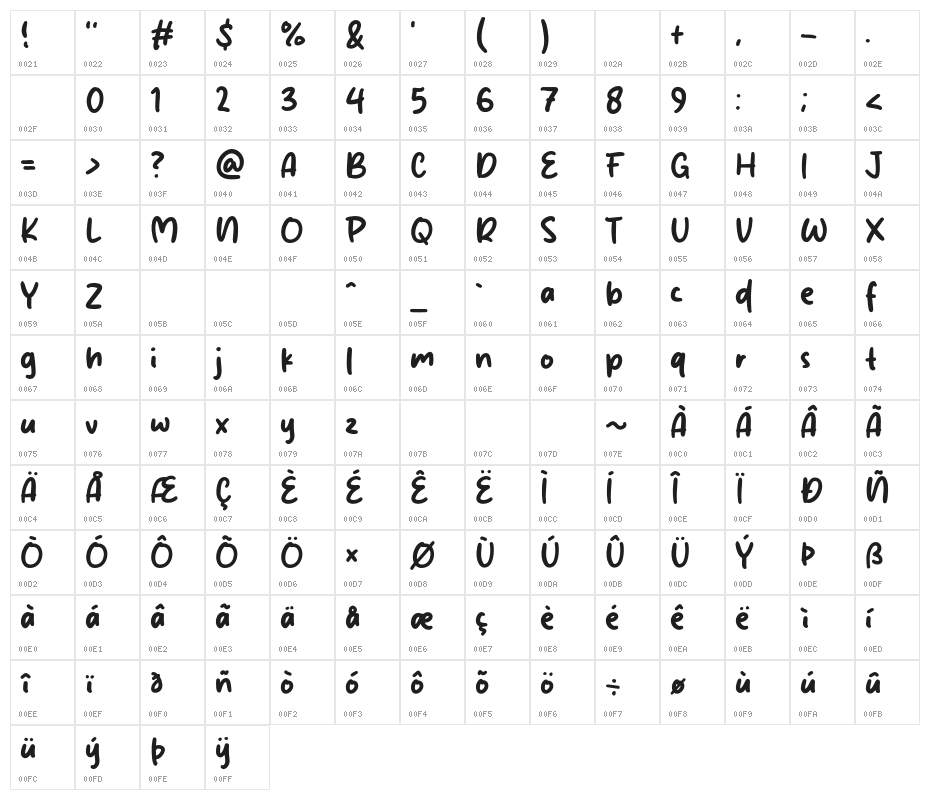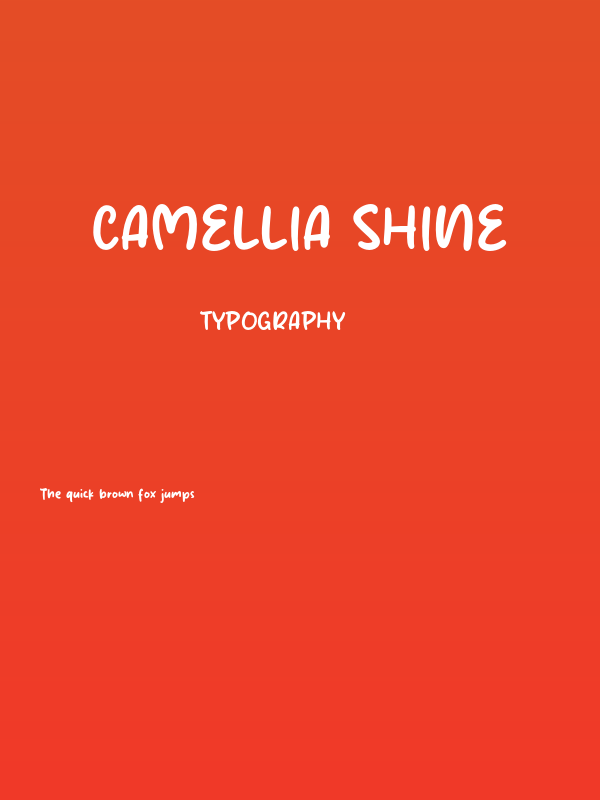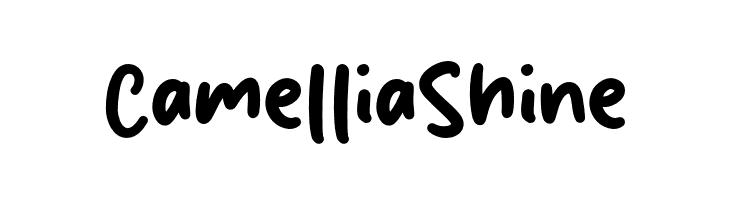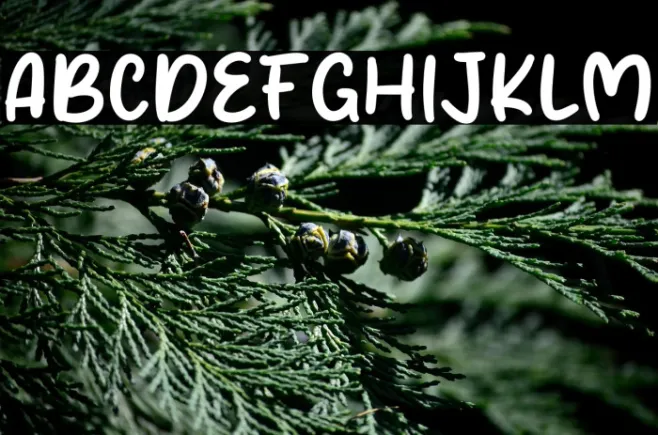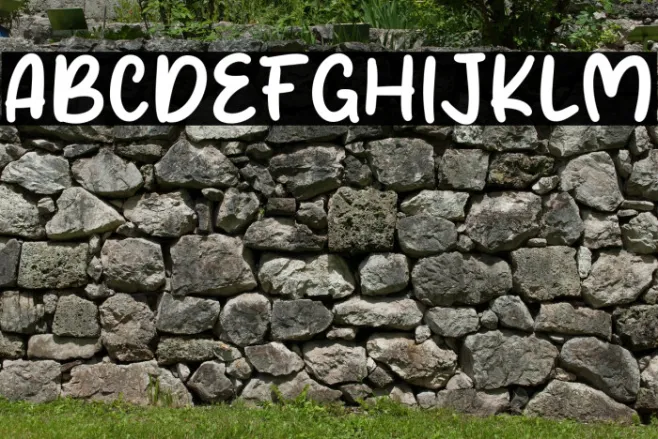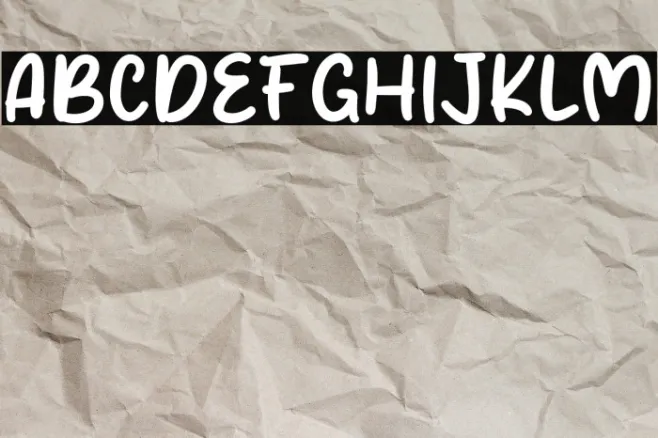
Camellia Shine Font
Camellia Shine Description
A playful, handwritten font with rounded edges and a casual style, suitable for informal and creative projects.
| Overall Style | Casual |
| Proposed Projects | Greeting cards, children's books, casual branding. |